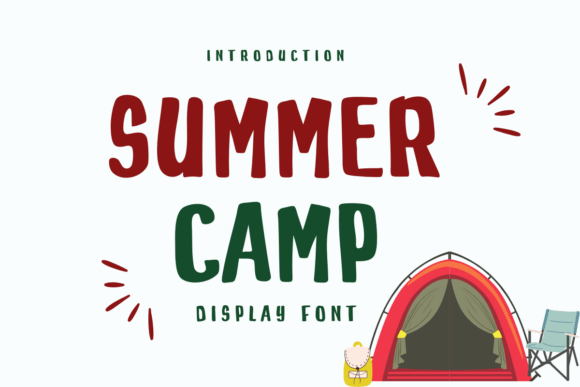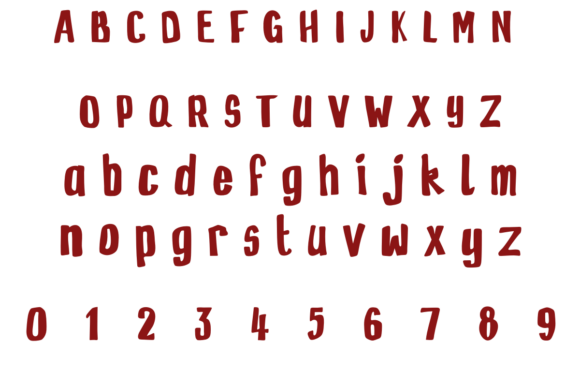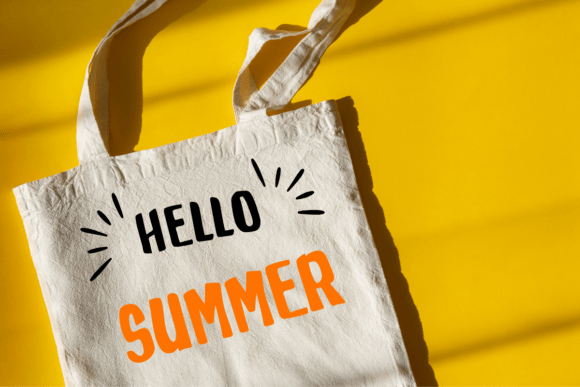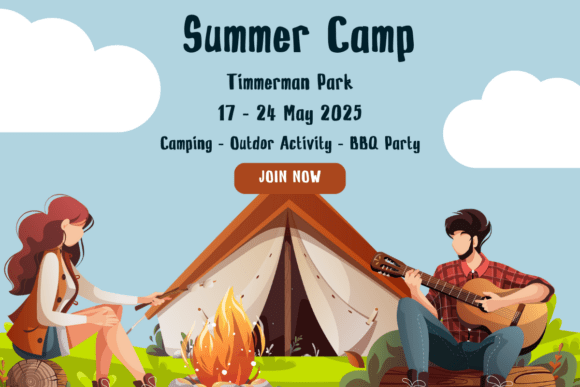
Summer Camp Font
About the Summer Camp Font
Step up your design game with Summer Camp Font, a font that exudes confidence and style. Summer Camp is a quirky and adventurous display font with a rustic handmade feel. Its bold and playful style makes it a perfect match for camping posters, children’s books, adventure branding, and outdoor-themed designs.
Summer Camp Font Usage Examples
Summer Camp Font Example